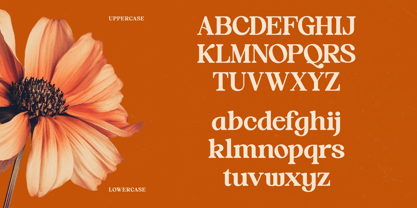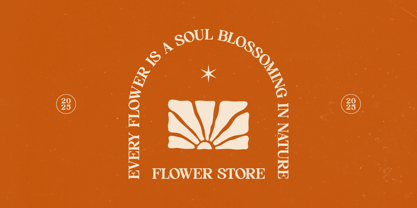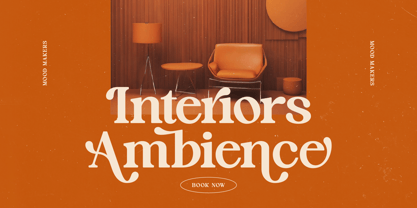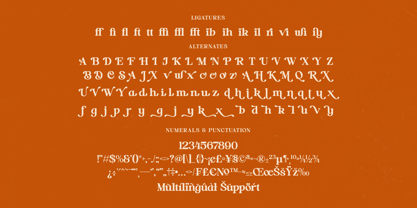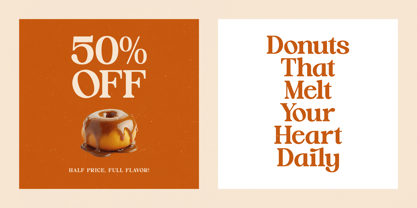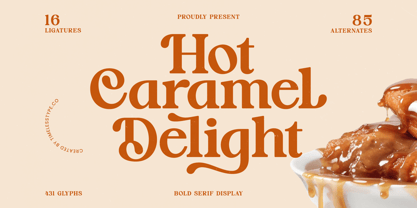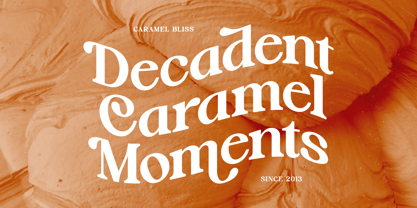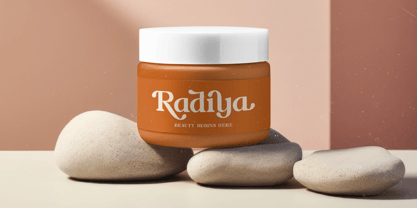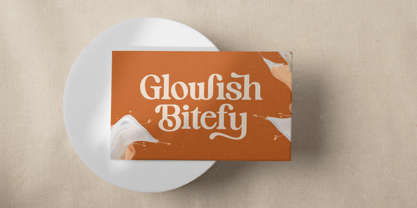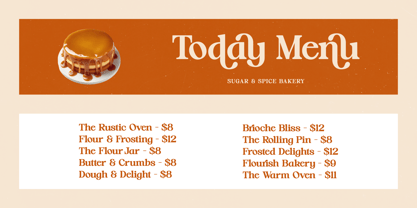
Hot Caramel Delight
The Hot Caramel Delight Font Family was designed by Heru Utama Putra and published by Timelesstype Studio. Hot Caramel Delight contains 2 styles and family package options.
Hot Caramel Delight - Bold Serif Font , from Timelesstype, Suitable for any projects such as: logos, branding projects, homeware designs, product packaging, mugs, quotes, posters, shopping bags, t-shirts, book covers, name card, invitation cards, greeting cards, label, photography, watermark, special events, and all your other luxury and beautiful projects that need a Luxury Serif taste.